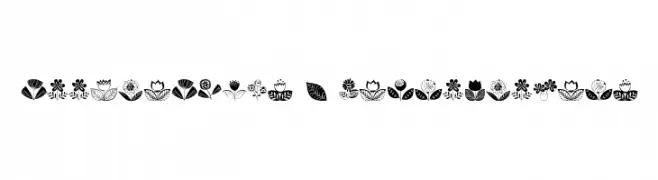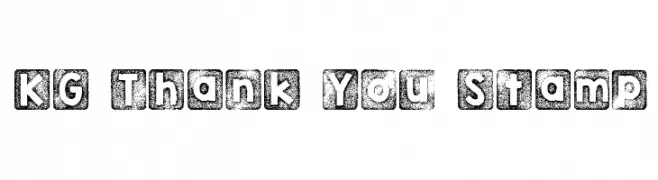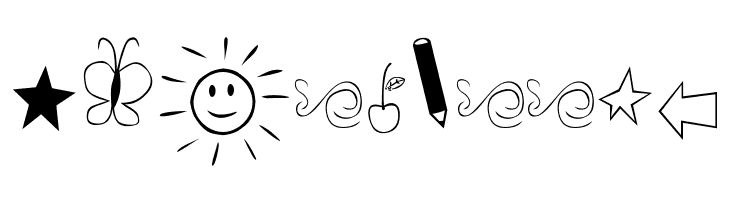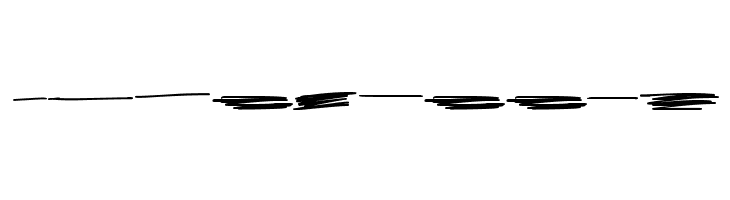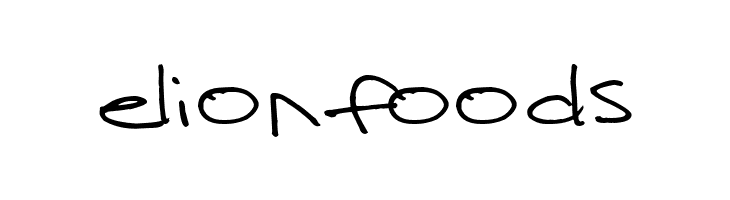
Retro floral and leaf dingbat set with playful, decorative motifs.
A playful collection of hand-drawn doodle icons with a whimsical and artistic style.
A playful set of hand-drawn dingbat icons featuring everyday objects and symbols.
A bold, distressed font with a vintage, stamped look.
Hand-drawn, sketchy marker-style decorative font.
A casual, handwritten font with a playful and expressive style.